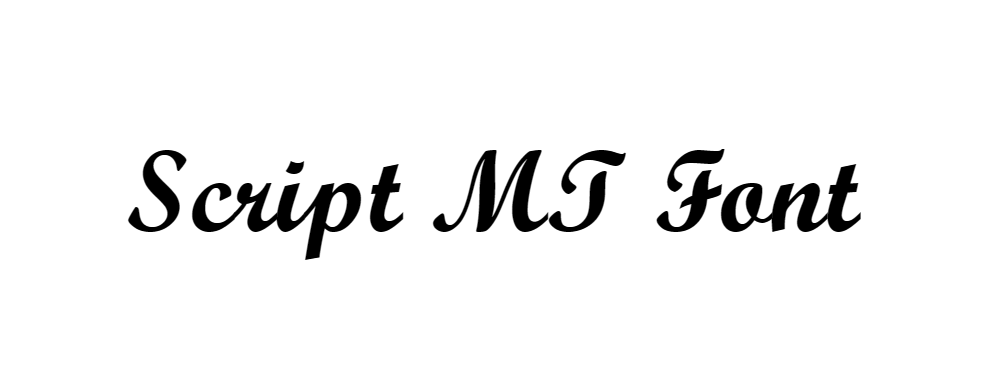
Script MT
Script MT is a handwritten font (1995). The letters have the small wobbles and personality of real handwriting, so your text feels warm instead of printed. It's a free download, and you can try it with your own text in the preview above first.
With complete upper and lowercase letters and all ten digits, Script MT is ready for real wording, not just a single headline. Common punctuation such as &, !, ? and @ is included as well. It also has the accented letters you need for Spanish, French, German, Portuguese and Italian.
Designers usually reach for fonts like Script MT when they're making greeting cards, journal pages and friendly social posts. Set it a bit larger than you would a normal text font. Handwriting styles lose their charm once they get too small to read comfortably.
Yes. Script MT includes the accented letters needed for Spanish, French, German, Portuguese and Italian, so it works for more than just English.